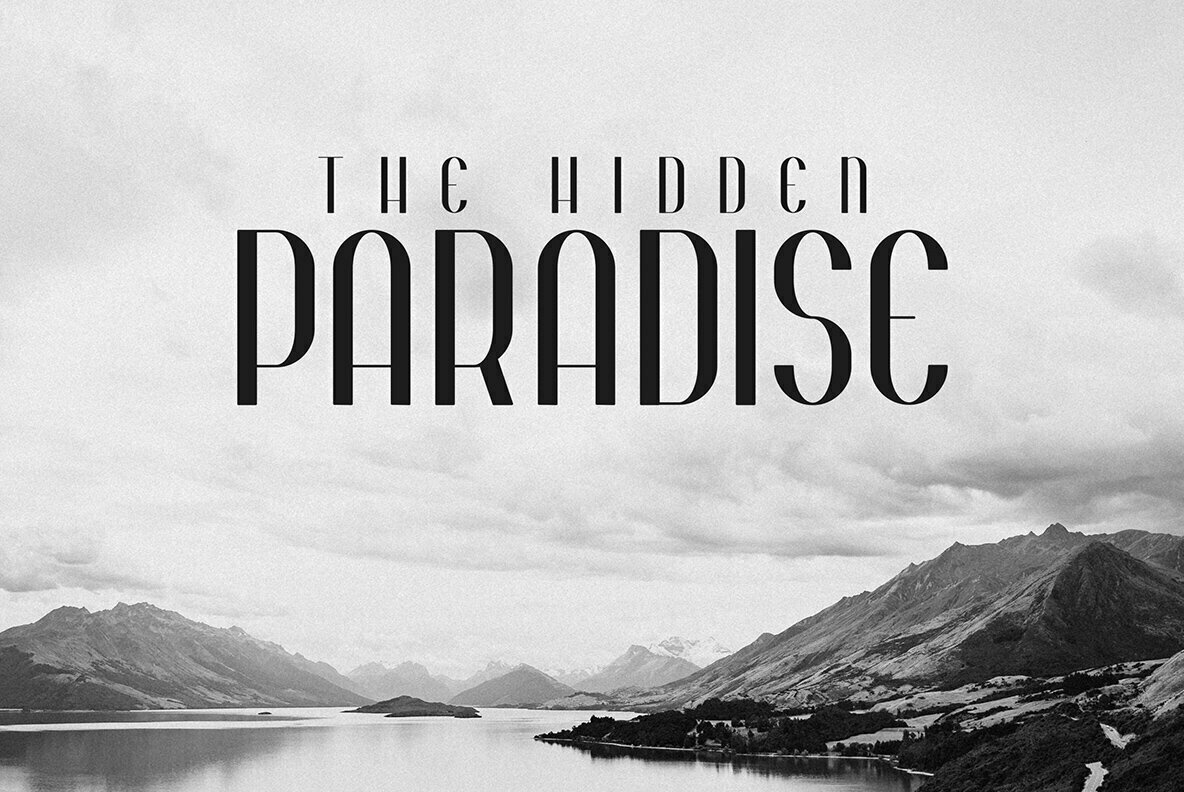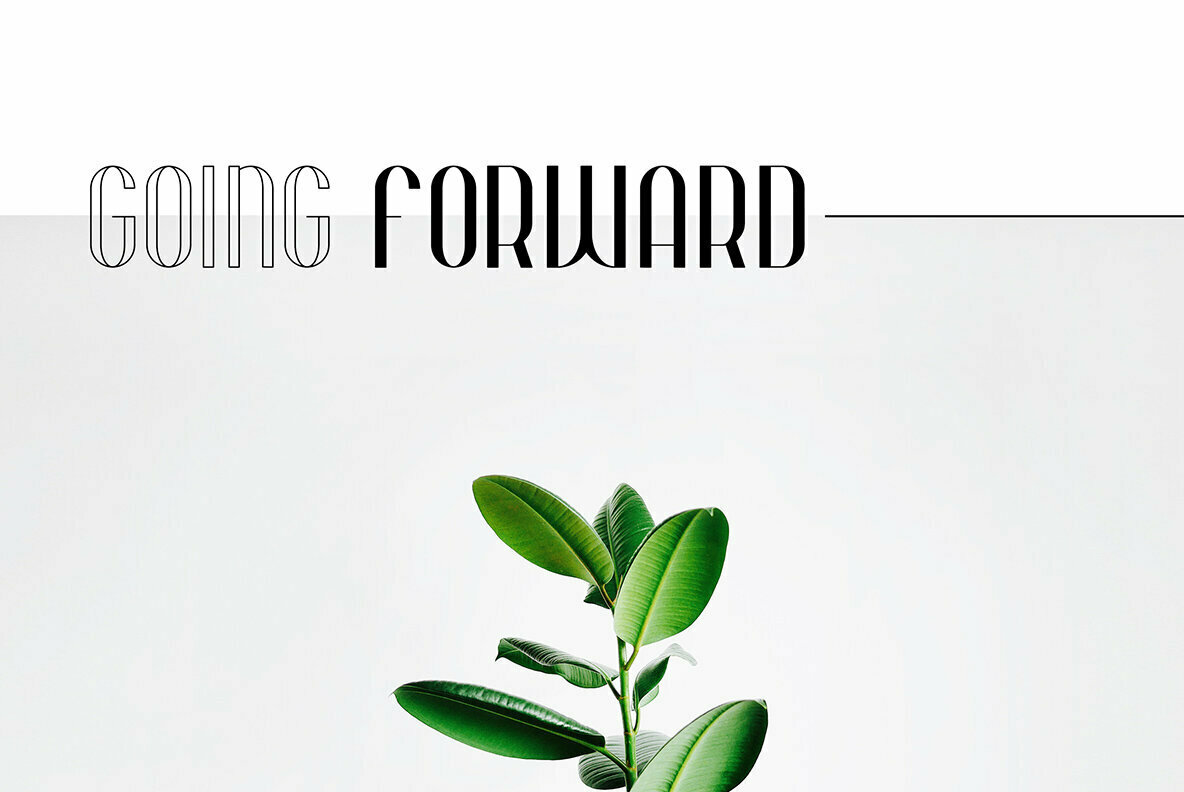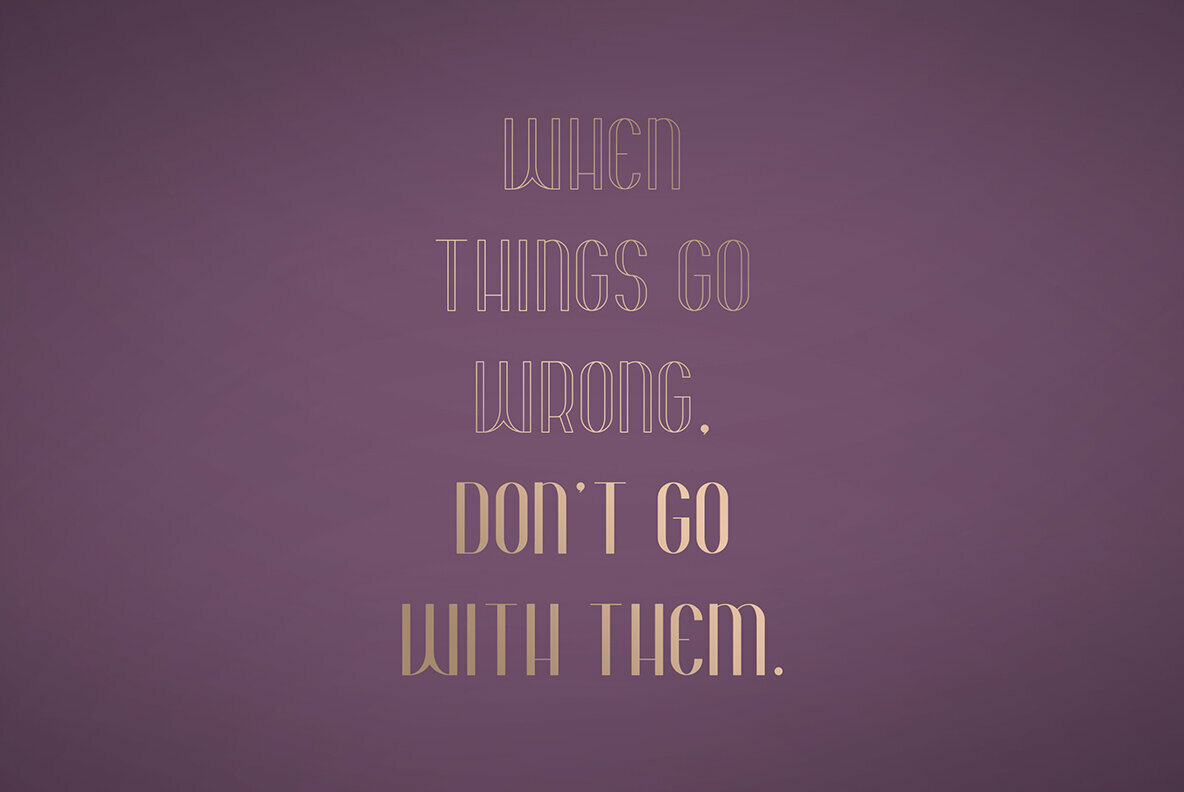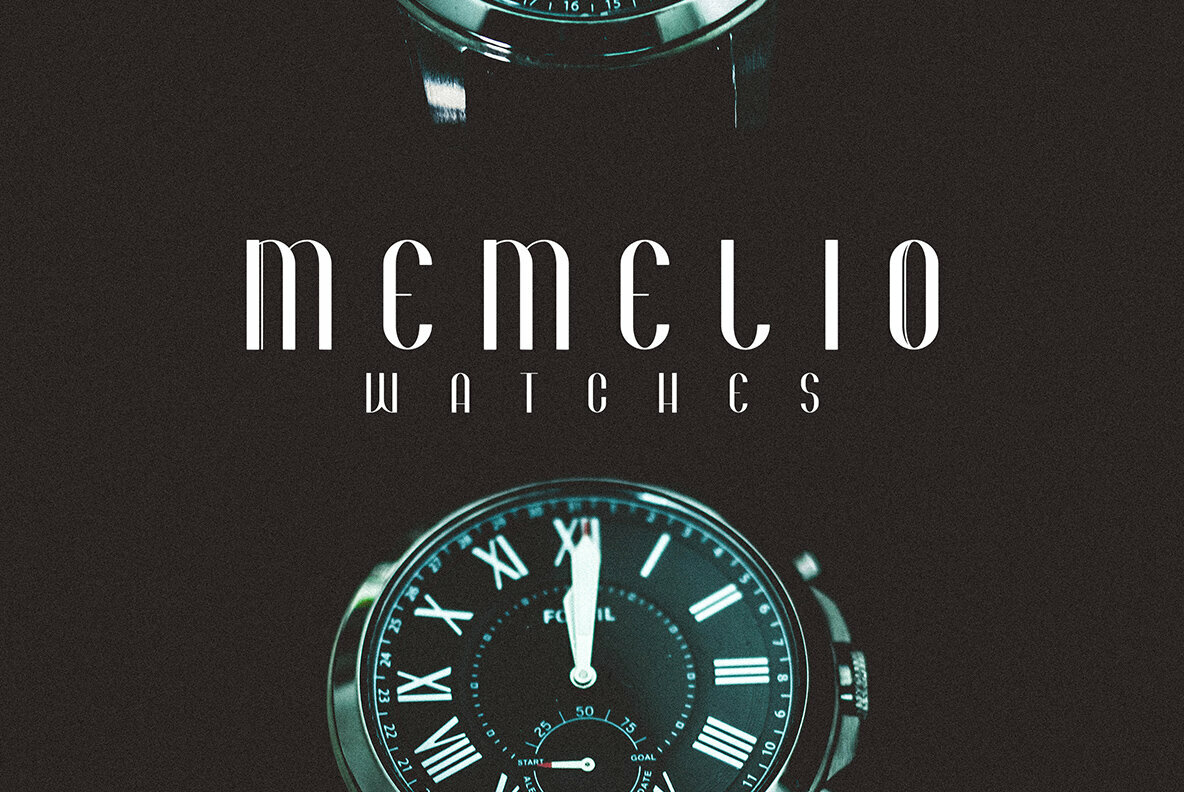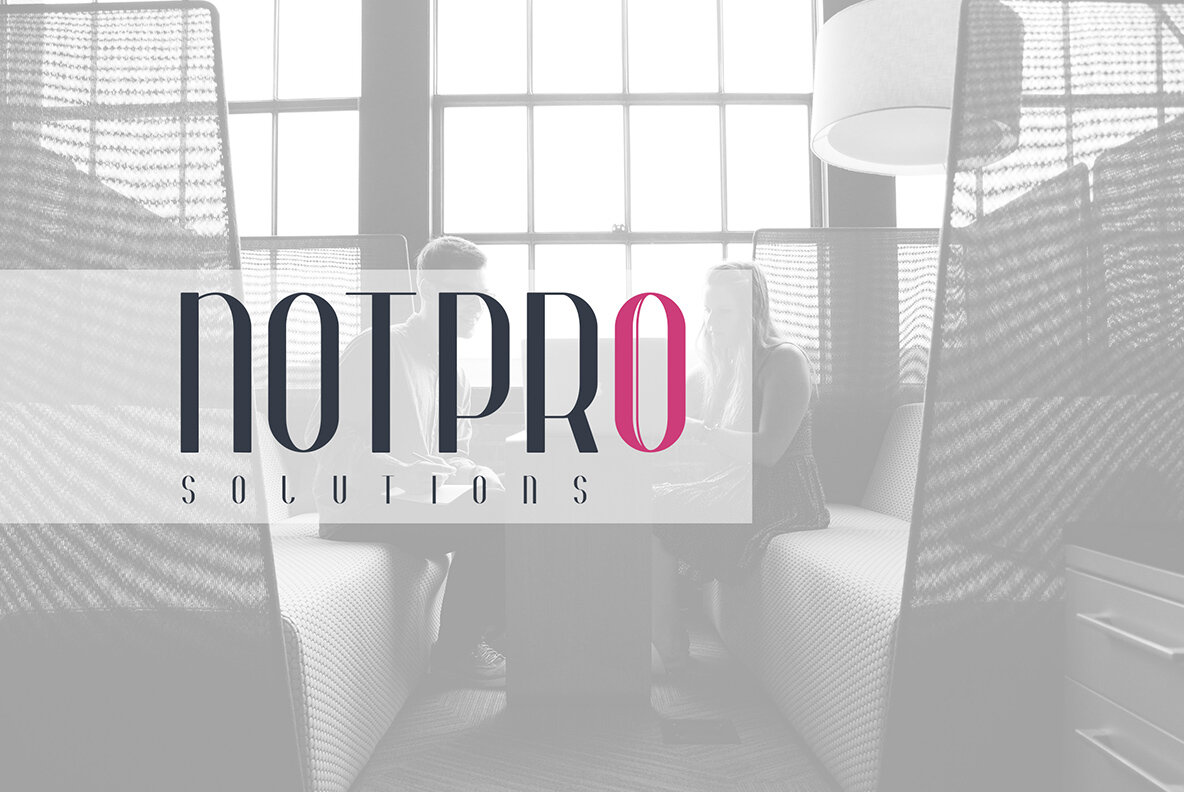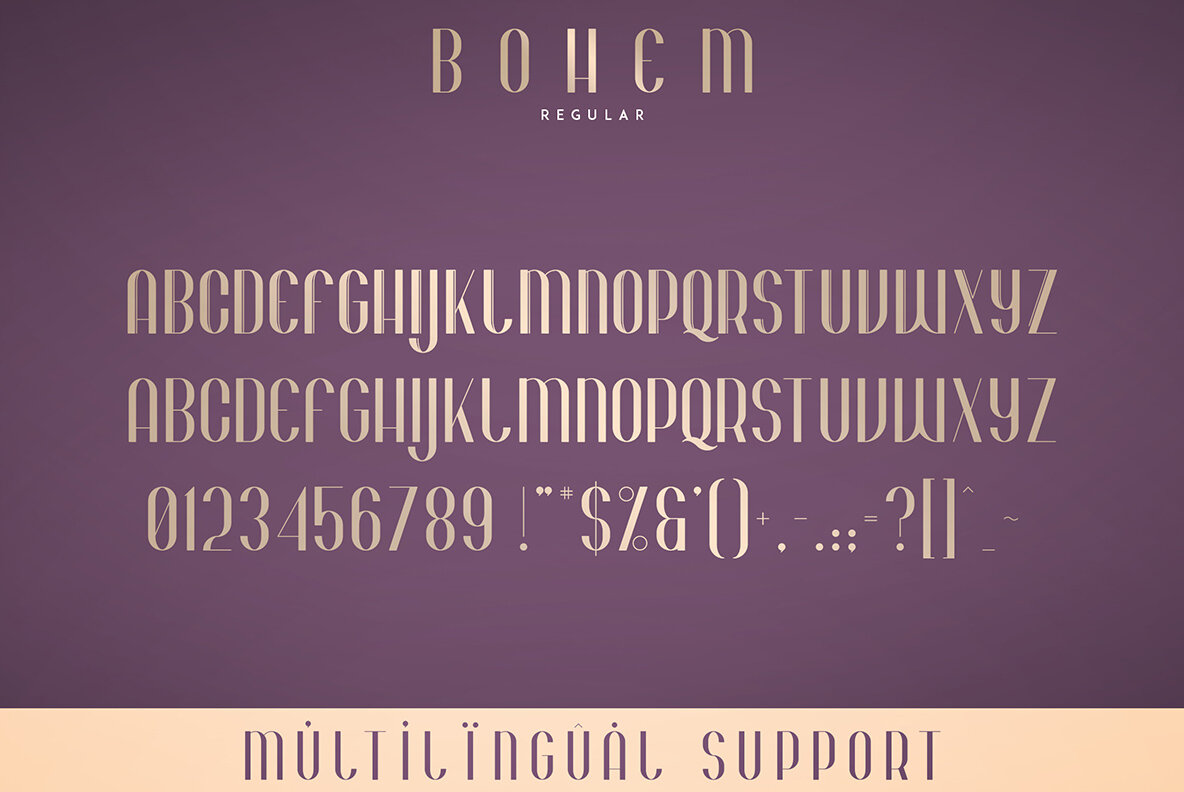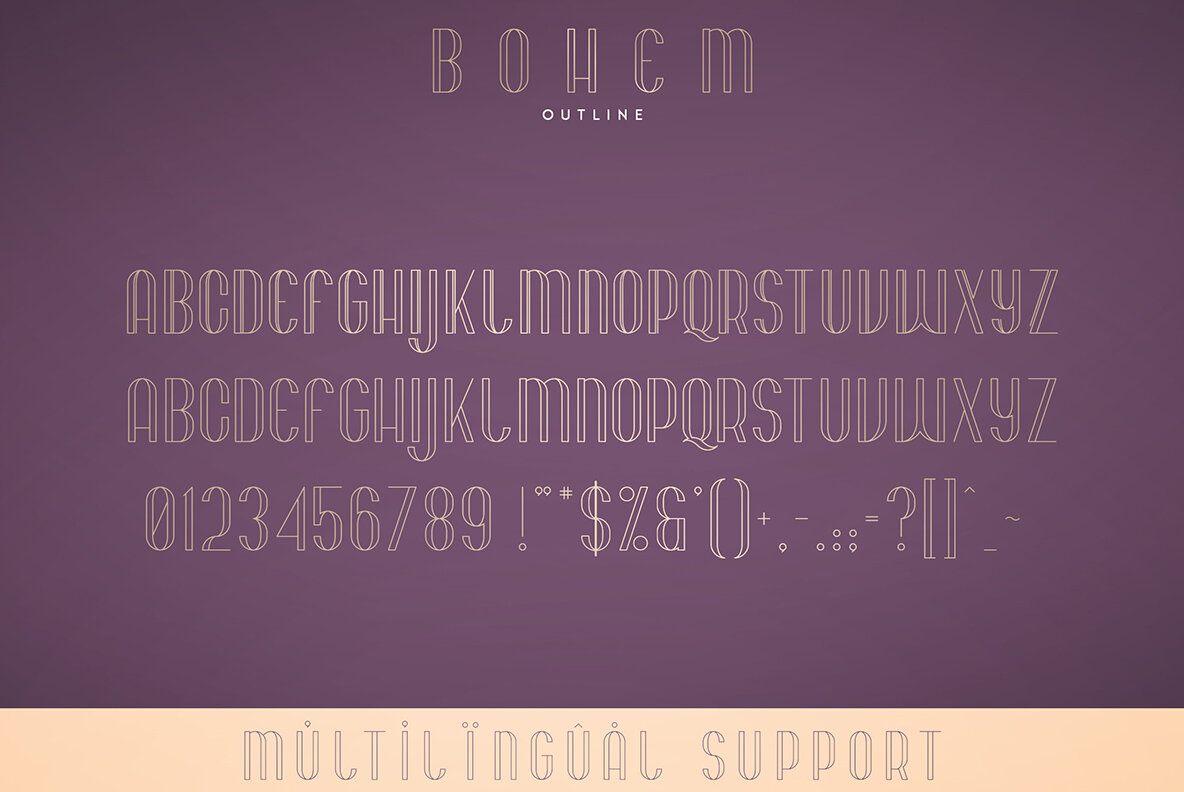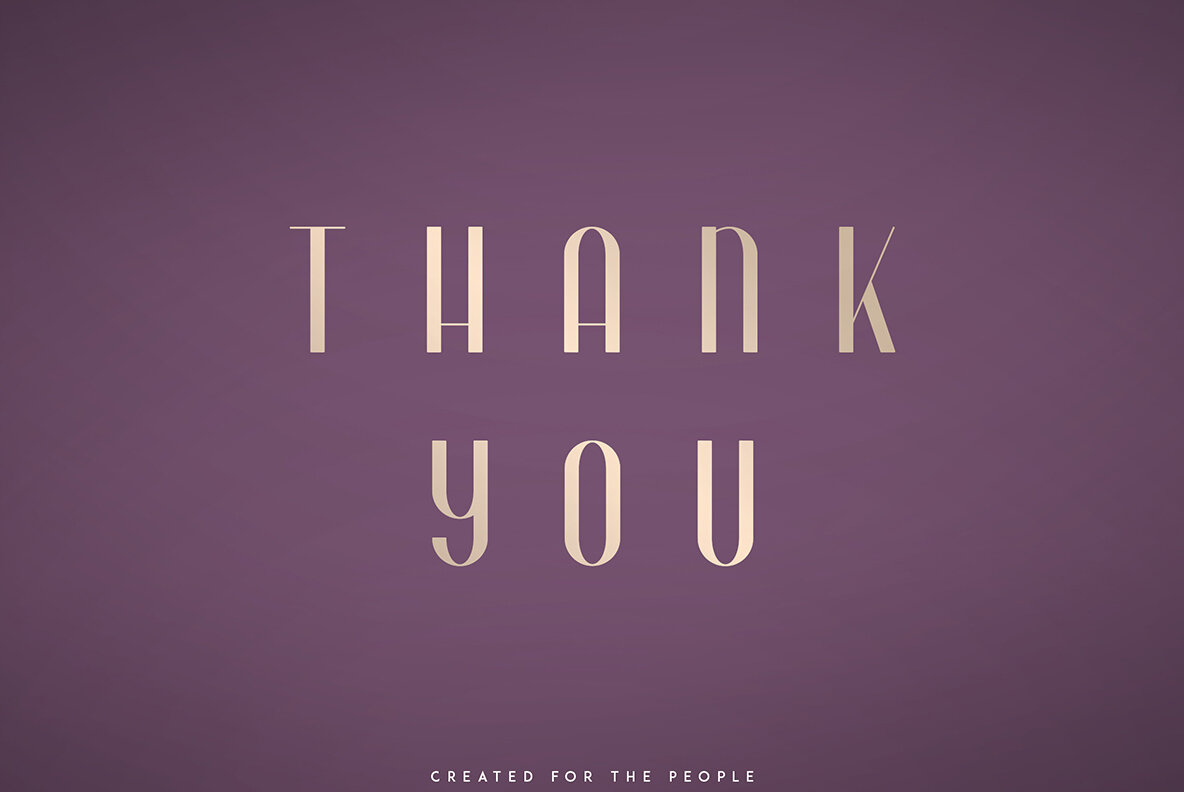
Bohem Font
Bohem Regular
Bohem Outline
Introducing Bohem, a sophisticated font from VP Creative Shop. Designed with elegance in mind, Bohem offers a clean aesthetic perfect for diverse design needs. This typeface is ideal for both large and small sizes, making it a reliable choice for creative projects. Whether you're working on branding, homeware designs, product packaging, or magazine headers, Bohem provides a stylish text overlay for any background image. Its versatility shines through, catering to a variety of visual presentations. Please note that mock-ups and backgrounds used in the display are not included with the font purchase.Bohem: Elegant and Versatile Typeface